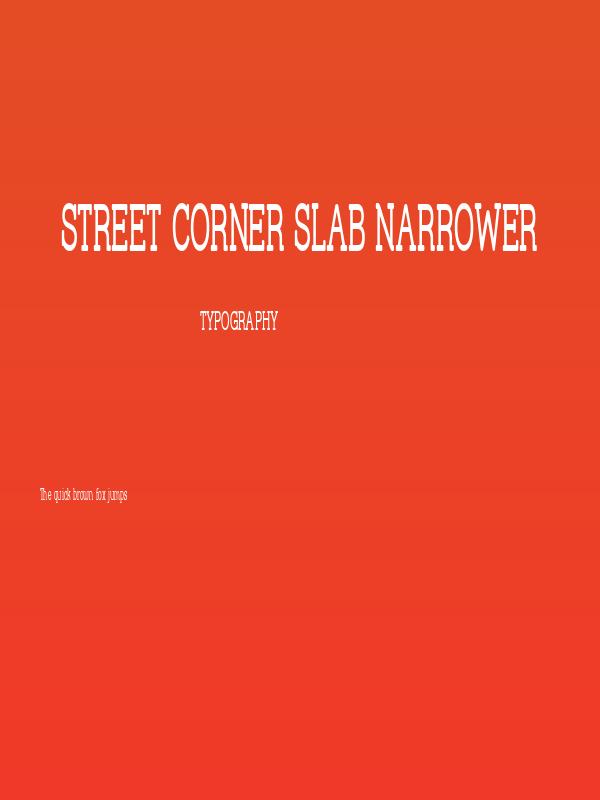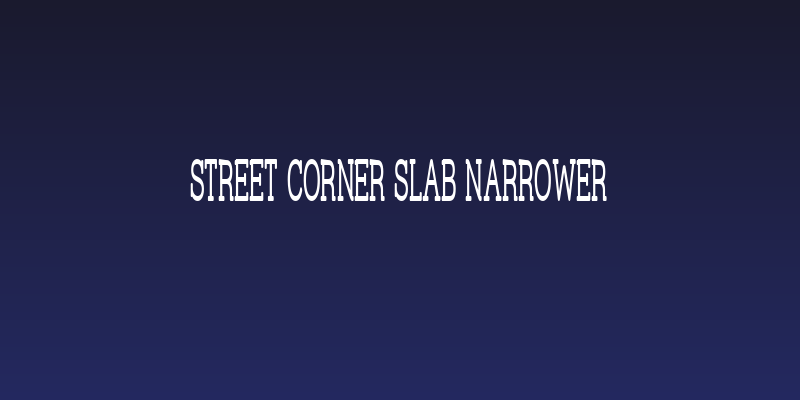
Street Corner Slab Narrower Font
Street Corner Slab Narrower Description
This font features a distinct slab serif style with narrow proportions, giving it a unique and modern appearance. The serifs are prominent and squared, adding a touch of boldness to the overall design. The characters are evenly spaced, maintaining a clean and organized look. The uppercase letters are tall and commanding, while the lowercase letters are slightly more compact, yet still maintain readability. The numerals are consistent with the overall style, providing a cohesive look across all characters. Special characters are well-defined, ensuring versatility in various design applications.